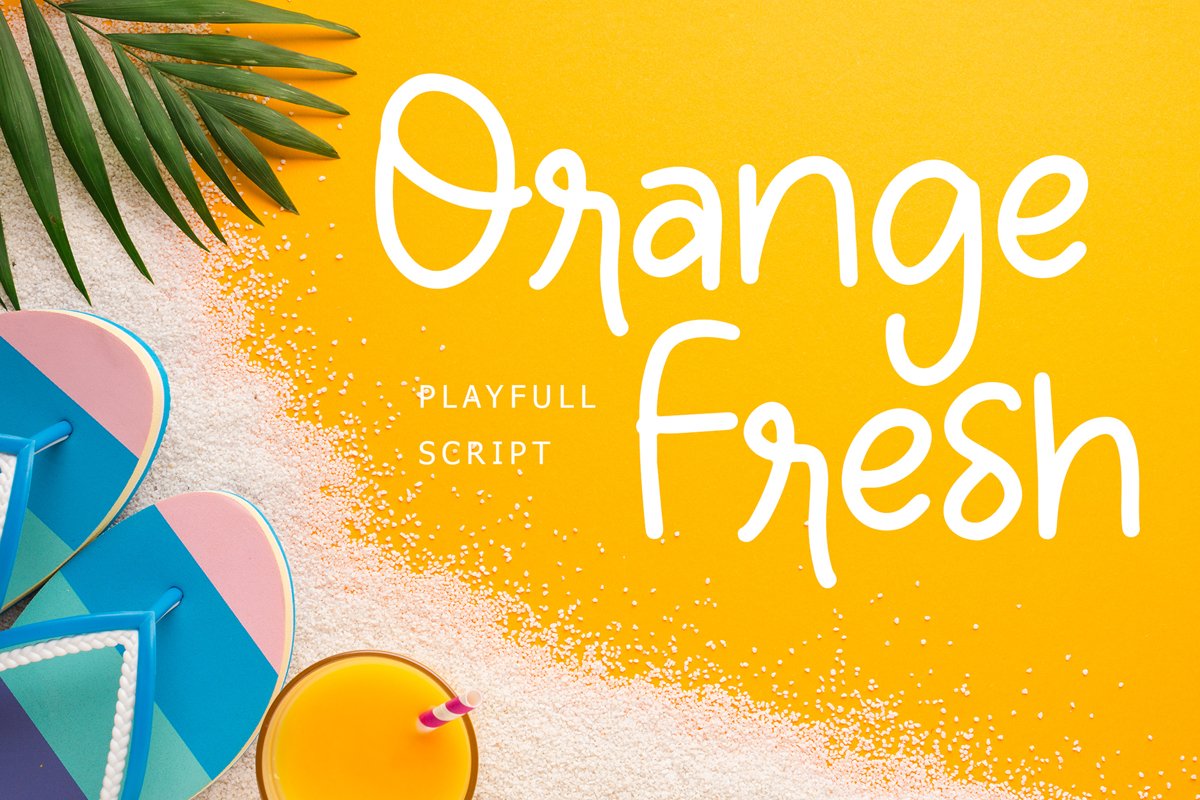
Orange Fresh Handwritten Font
OrangeFresh
Orange Fresh is an exciting handwritten with playful style. This Font is perfect for branding projects, logo, wedding designs, social media posts, advertisements, product packaging, product designs, label, photography, watermark, invitation, stationery and any projects.What's Included :
Orange Fresh Handwritten Font